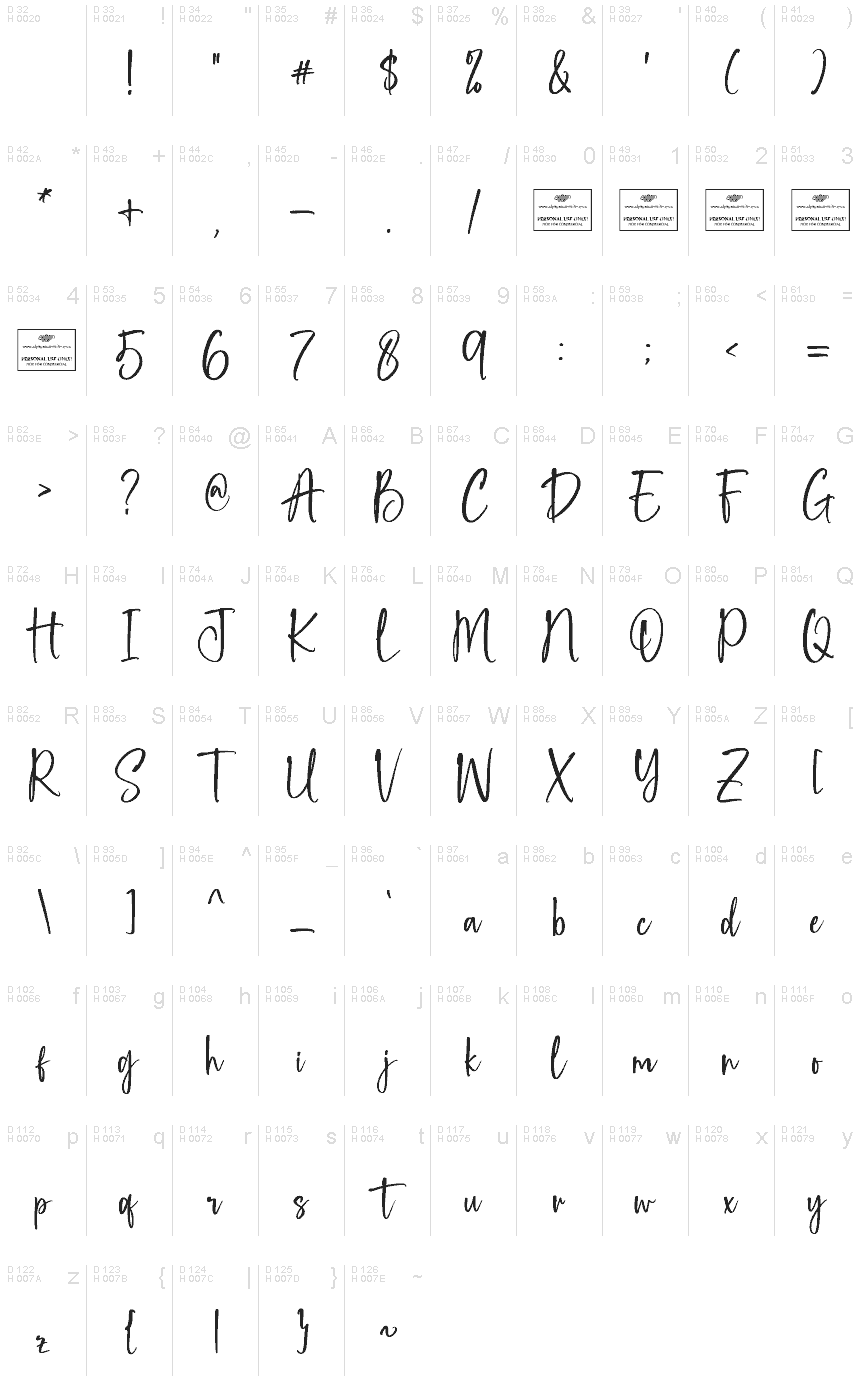
Jubilation
Jubilation font is a light handwritten font by Alpaprana Studio, each letter standing out individually yet effortlessly complementing the flare of the next. Its clear and expressive shape, in addition to its fluid movement and casual style, make it suitable for camel case designs that further highlight its modern aesthetic.
This free handwritten font that is joyful by both name and character can rendered small or large for quotes or comics or as title options for movie posters or books covers. It keeps things exciting each time with greeting cards that await all of our messages, stationery projects like diaries and photo albums, branding designs for cosmetics products, decorations for stickers, etc.